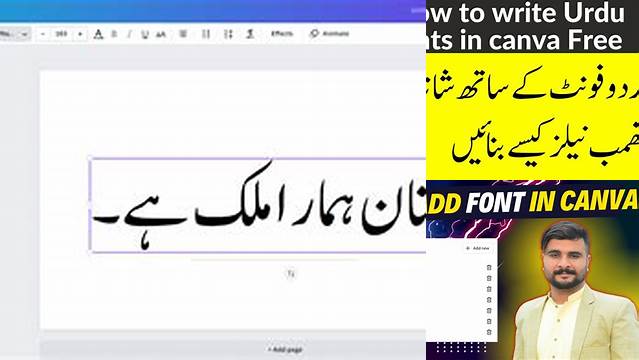
Add Urdu Fonts To Canva: A Simple Guide
Hey guys! Ever wanted to spice up your Canva designs with beautiful Urdu script? Well, you've come to the right place. Adding Urdu fonts in Canva is super easy, and this guide will walk you through everything step by step. We'll cover different methods, tackle common issues, and even give you some font recommendations. So, let's dive in and get those designs looking amazing!
1. Understanding Font Compatibility in Canva
Before we jump into adding Urdu fonts, it's essential to understand how Canva handles fonts. Canva has a vast library of its own fonts, but it also allows you to upload your own. The key thing to remember is that not all fonts are created equal. Some fonts might not display correctly due to encoding issues or lack of support for specific characters. So, when dealing with Urdu fonts, which have unique characters and script, it’s crucial to ensure compatibility. Make sure the font you're using is a Unicode font, as this format supports a wide range of characters, including those in Urdu. Unicode ensures that your text displays correctly across different platforms and applications. Keep this in mind as we move forward, guys!
Always double-check the font format before uploading. Common formats like OTF (OpenType Font) and TTF (TrueType Font) are generally compatible with Canva. Understanding this will save you a lot of headaches down the road. And remember, a little preparation goes a long way in ensuring your designs look professional and polished. We want those Urdu designs to shine, right?
2. Finding High-Quality Urdu Fonts for Canva
Finding the right font can make or break your design. When it comes to Urdu fonts, quality is key. You want fonts that are not only beautiful but also legible and well-designed. There are several online resources where you can find high-quality Urdu fonts. Websites like UrduWeb, PakType, and even Google Fonts offer a variety of options. Google Fonts is particularly useful because it's free and offers a wide selection of Unicode-compliant Urdu fonts.
When searching for fonts, consider the style you're aiming for. Are you looking for something traditional and elegant, or something more modern and playful? Different fonts can evoke different emotions and moods, so choose wisely. Also, pay attention to the licensing terms of the font. Some fonts are free for personal use but require a license for commercial projects. Always ensure you have the necessary permissions before using a font in your designs. Trust me, guys, spending a little time finding the perfect font is worth it. A great font can elevate your design and make it truly stand out.
4. Using the Uploaded Urdu Fonts in Your Canva Designs
Now that you've uploaded your Urdu font, let's put it to use! Open up a design in Canva or create a new one. Select the text element you want to modify, and then click on the font dropdown menu in the toolbar. You should see your uploaded font listed under the “Uploaded fonts” section. Click on your Urdu font to apply it to the selected text. If the font doesn't display correctly initially, don't panic! Sometimes, you might need to refresh the page or clear your browser cache. This usually resolves any temporary glitches.
Once the font is applied, you can adjust the size, color, and other formatting options just like you would with any other font in Canva. Experiment with different styles and combinations to see what works best for your design. Urdu script can be particularly beautiful when paired with complementary fonts and colors. So, have fun and get creative, guys! And remember, the key to great design is often in the details. Make sure your text is legible and visually appealing, and you'll be well on your way to creating stunning Urdu designs in Canva.
5. Troubleshooting Common Issues with Urdu Fonts in Canva
Sometimes, things don't go exactly as planned. You might encounter some issues when using Urdu fonts in Canva. One common problem is that the text might not display correctly, showing up as boxes or garbled characters. This usually happens if the font isn't Unicode-compliant or if there's a temporary glitch in Canva. As mentioned earlier, make sure your font is Unicode-compatible. If the issue persists, try refreshing the page or clearing your browser cache.
Another issue you might face is that the font doesn't appear in the font list after uploading. This can happen if the font file is corrupted or if there was an error during the upload process. Try re-uploading the font file and make sure it’s in a supported format (TTF or OTF). If you're still having trouble, Canva’s help center is a great resource. They have articles and FAQs that address common issues. And if all else fails, don't hesitate to reach out to their support team. They're usually pretty responsive and can help you troubleshoot any problems. Remember, guys, even the best designers run into technical snags sometimes. The key is to stay patient and persistent!
6. Understanding Urdu Script and Typography
To truly master using Urdu fonts in Canva, it's helpful to understand a bit about Urdu script and typography. Urdu is written from right to left and uses a cursive script, meaning the letters are connected. This is different from Latin scripts like English, where letters are usually separate. When choosing an Urdu font, consider how well it maintains the flow and connectivity of the script. A well-designed Urdu font will have smooth transitions between letters and create a visually pleasing rhythm.
Pay attention to the kerning (the spacing between letters) and the leading (the spacing between lines) as well. These elements can significantly impact the legibility and overall appearance of your text. Experiment with different settings to find the perfect balance. Also, be mindful of the context in which you're using the Urdu text. Formal documents might call for a more traditional and elegant font, while informal designs could benefit from a more playful and modern typeface. Understanding the nuances of Urdu script and typography will help you make informed design choices and create visuals that are both beautiful and effective.
7. Choosing the Right Font Size for Urdu Text in Canva
Font size plays a crucial role in the readability and visual impact of your designs. When working with Urdu text in Canva, it’s important to choose a font size that is appropriate for the context and the audience. Too small, and your text will be difficult to read; too large, and it might overwhelm the design. Consider the overall layout and the amount of text you're using. For headlines and titles, you can usually go with a larger font size to grab attention. But for body text, it’s best to stick with a more moderate size to ensure readability.
Experiment with different font sizes and see how they look on different devices. What looks good on your computer screen might not translate well to a mobile device. Canva has a handy preview feature that allows you to see how your designs will appear on various screen sizes. Use this to your advantage, guys! Also, think about the intended use of your design. Is it for a social media post, a printed poster, or a presentation slide? Each of these formats might require a different font size to achieve the best results.
8. Kerning and Leading Adjustments for Urdu Fonts
As we touched on earlier, kerning and leading are essential aspects of typography that can significantly impact the appearance of your Urdu text in Canva. Kerning refers to the spacing between individual letters, while leading refers to the spacing between lines of text. Adjusting these settings can improve the readability and visual harmony of your design. In Urdu script, where letters are connected, kerning is particularly important. You want to ensure that the letters flow smoothly without feeling too cramped or too spaced out.
Canva allows you to adjust kerning and leading in the text formatting options. Experiment with subtle adjustments to see how they affect the overall look of your text. Sometimes, even a small change can make a big difference. If your text looks cluttered or difficult to read, try increasing the leading. This will give the lines of text more breathing room and make them easier to follow. Conversely, if your text looks too sparse, try decreasing the leading. Play around with these settings, guys, and you’ll soon get a feel for what works best for different fonts and layouts.
9. Adding Effects and Styles to Urdu Fonts in Canva
Canva offers a variety of effects and styles that you can apply to your Urdu fonts to enhance their visual appeal. You can add shadows, outlines, glows, and other effects to make your text stand out. These effects can be particularly useful for headlines and titles, where you want to grab the viewer’s attention. However, it’s important to use these effects sparingly and strategically. Overdoing it can make your text look cluttered and distracting.
Experiment with different styles to see what complements your font and your overall design. A subtle shadow can add depth and dimension, while an outline can make your text pop against a busy background. Canva also offers pre-designed text styles that you can apply with a single click. These styles can be a great starting point, but don’t be afraid to customize them to suit your needs. Remember, guys, the goal is to enhance your text, not to overwhelm it. A well-chosen effect can add a touch of personality and professionalism to your design.
10. Combining Urdu Fonts with Other Fonts in Canva
One of the keys to creating visually appealing designs is to use fonts in harmony. This means choosing fonts that complement each other and create a cohesive look. When working with Urdu fonts in Canva, you might want to combine them with Latin fonts (like English) to create a bilingual design. This can be a great way to reach a wider audience and add visual interest to your projects. The trick is to choose fonts that have a similar style and weight. A bold Urdu font might pair well with a bold Latin font, while a delicate Urdu font might look best with a similarly delicate Latin font.
Consider the purpose of your design when choosing fonts. For formal documents, you’ll want to stick with classic and professional fonts. For more casual designs, you can experiment with more playful and unique typefaces. Canva offers a variety of font pairings that you can use as inspiration. You can also browse online resources for font pairing suggestions. Remember, guys, the goal is to create a balanced and harmonious design. Don’t be afraid to experiment, but always keep readability and visual appeal in mind.
11. Best Practices for Using Urdu in Graphic Design
Using Urdu in graphic design requires a thoughtful approach to ensure readability and cultural sensitivity. Since Urdu is written from right to left, consider the overall layout and flow of your design. Place the Urdu text in a way that feels natural and intuitive for Urdu readers. Avoid placing Urdu text in areas where it might be easily overlooked or misinterpreted. Also, be mindful of the cultural context of your design. Urdu is a language rich in history and tradition, so it’s important to use it respectfully and appropriately.
Avoid using slang or colloquialisms that might not translate well or might be offensive to some audiences. When in doubt, it’s always a good idea to consult with a native Urdu speaker to ensure that your text is accurate and culturally appropriate. Pay attention to the details, guys! Small things like the correct placement of diacritics (the small marks above or below letters) can make a big difference in readability and accuracy. And remember, good design is about more than just aesthetics; it’s about communication and connection. By using Urdu thoughtfully and respectfully, you can create designs that resonate with your audience and convey your message effectively.
12. Utilizing Urdu Calligraphy Fonts in Canva
Urdu calligraphy is an art form in itself, and incorporating calligraphy fonts into your Canva designs can add a touch of elegance and sophistication. Calligraphy fonts mimic the fluid and artistic strokes of traditional Urdu calligraphy, creating a visually stunning effect. However, calligraphy fonts can also be more challenging to read than standard fonts, so it’s important to use them judiciously. Reserve them for headlines, titles, or short phrases where you want to make a strong visual statement.
Avoid using calligraphy fonts for body text, as they can be tiring to read in large blocks. When choosing a calligraphy font, consider the overall style of your design. A more ornate calligraphy font might be suitable for formal occasions, while a simpler calligraphy font might be better for everyday designs. Experiment with different sizes and colors to see what works best. Canva offers a variety of calligraphy fonts, and you can also upload your own custom calligraphy fonts if you have them. Remember, guys, calligraphy fonts can be a powerful design tool, but they should be used with care and intention. A well-chosen calligraphy font can elevate your design, but a poorly chosen one can detract from it.
13. Creating Urdu Text Logos in Canva
Creating a logo with Urdu text can be a unique and impactful way to represent your brand or organization. An Urdu text logo can convey a sense of cultural heritage, authenticity, and sophistication. When designing an Urdu text logo in Canva, start by choosing a font that reflects your brand’s personality and values. A traditional and elegant font might be suitable for a high-end brand, while a modern and bold font might be better for a contemporary brand. Consider the overall shape and composition of your logo. Urdu script lends itself well to flowing and dynamic designs, so you might want to experiment with curved lines and intricate details.
Pay attention to the spacing between letters and words to ensure readability. A logo that is difficult to read is not an effective logo. Use color strategically to reinforce your brand’s identity and message. You can use a single color for a minimalist look or combine multiple colors for a more vibrant and dynamic design. Canva offers a variety of logo templates that you can use as a starting point. You can also create your logo from scratch using Canva’s design tools. Remember, guys, a logo is more than just a pretty picture; it’s the visual representation of your brand. Take the time to create a logo that is both beautiful and effective.
14. Designing Urdu Social Media Graphics in Canva
Social media is a visual medium, and creating eye-catching graphics is essential for engaging your audience. When designing Urdu social media graphics in Canva, consider the platform you’re designing for. Different platforms have different size requirements and best practices. For example, Instagram posts are typically square, while Facebook cover photos are rectangular. Canva offers pre-sized templates for various social media platforms, which can save you time and effort. Use high-quality images and graphics to make your designs look professional.
Canva has a library of millions of stock photos and graphics that you can use in your designs. Use color strategically to grab attention and convey your message. Bright and vibrant colors can be effective for social media, but be sure to use them in moderation. Incorporate Urdu text into your designs to connect with your Urdu-speaking audience. Use clear and concise language that is easy to understand. Remember, guys, social media graphics are often viewed on small screens, so it’s important to keep your designs clean and uncluttered. Use white space effectively to give your design room to breathe.
15. Creating Bilingual Designs with Urdu and English in Canva
Designing bilingually in Urdu and English can be a powerful way to reach a wider audience and create inclusive designs. When creating bilingual designs in Canva, it’s important to consider how the two languages will interact visually. Choose fonts that complement each other and have a similar style and weight. Align the Urdu and English text in a way that feels balanced and harmonious. You can align the text on the right or left, or you can center it. Consider the cultural context of your design and use language that is appropriate for your target audience.
Avoid using literal translations, as they can often sound awkward or unnatural. Instead, focus on conveying the same message in both languages using idiomatic expressions and phrasing. Use color and imagery strategically to reinforce your message and create a cohesive design. Canva offers a variety of templates and design elements that you can use to create bilingual designs. Remember, guys, bilingual design is about more than just translating words; it’s about communicating effectively across cultures and languages.
16. Urdu Font Pairing Strategies for Canva
Pairing fonts effectively is crucial for creating visually appealing and readable designs. When working with Urdu fonts in Canva, consider pairing them with Latin fonts (like English) to create a balanced and harmonious look. A good rule of thumb is to choose fonts that have contrasting styles but complementary weights and proportions. For example, you might pair a bold Urdu font with a lighter weight Latin font, or vice versa. Consider the overall tone and style of your design when choosing font pairings. A formal design might call for more classic and traditional fonts, while a casual design might benefit from more playful and modern typefaces.
Experiment with different font combinations to see what works best for your project. Canva offers a variety of font pairing suggestions that you can use as inspiration. You can also browse online resources and design blogs for font pairing tips and ideas. Pay attention to the legibility of your text. Choose font pairings that are easy to read, even at smaller sizes. Remember, guys, font pairing is an art, not a science. There are no hard and fast rules, but by following these guidelines, you can create designs that are both beautiful and effective.
17. Designing Urdu Invitations and Cards in Canva
Creating personalized invitations and cards with Urdu text in Canva can add a special touch to any occasion. Whether it's a wedding invitation, a birthday card, or a festive greeting, incorporating Urdu script can make your designs more meaningful and culturally relevant. When designing Urdu invitations and cards, start by choosing a font that reflects the tone and style of the event. For formal occasions, such as weddings, you might opt for an elegant calligraphy font. For more casual events, like birthdays, you could use a more playful and modern typeface. Consider the overall layout and composition of your design.
Urdu script lends itself well to flowing and decorative designs, so you might want to experiment with curved lines and intricate details. Use color and imagery to enhance your design and convey the desired mood. Canva offers a variety of templates and design elements that you can use to create beautiful Urdu invitations and cards. Pay attention to the details, guys! Small things like the correct placement of diacritics and the proper alignment of text can make a big difference in the overall appearance of your design. And remember, a well-designed invitation or card is a reflection of your thoughtfulness and attention to detail.
18. Using Urdu in Marketing Materials with Canva
Incorporating Urdu into your marketing materials can be a powerful way to connect with your target audience and build brand loyalty. Whether you’re designing brochures, flyers, social media ads, or website banners, using Urdu text can make your message more relevant and engaging for Urdu-speaking customers. When designing Urdu marketing materials in Canva, start by identifying your target audience and understanding their cultural preferences. Use language and imagery that resonates with your audience and avoids any potentially offensive or insensitive content. Choose fonts that are easy to read and that align with your brand’s identity.
Use color and visual elements to grab attention and convey your message effectively. Canva offers a variety of templates and design tools that you can use to create professional-looking marketing materials in Urdu. Pay attention to the overall layout and flow of your design. Ensure that the Urdu text is properly aligned and spaced, and that it complements the other design elements. Remember, guys, effective marketing is about building relationships and creating connections. By using Urdu in your marketing materials, you can demonstrate your commitment to your Urdu-speaking customers and build a stronger bond with your audience.
19. Creating Urdu Presentations with Canva
Delivering presentations in Urdu or incorporating Urdu text into your slides can be an effective way to communicate with an Urdu-speaking audience. When creating Urdu presentations with Canva, start by organizing your content and outlining your key messages. Use clear and concise language that is easy to understand. Choose fonts that are legible and that project a professional image. Use visuals, such as images, charts, and graphs, to illustrate your points and keep your audience engaged. Canva offers a variety of presentation templates that you can use as a starting point.
Design your slides with a clean and uncluttered layout. Avoid overcrowding your slides with too much text or too many images. Use color strategically to highlight key information and create visual interest. Pay attention to the flow of your presentation and ensure that your slides transition smoothly from one to the next. Remember, guys, a well-designed presentation is a powerful tool for communication. By using Urdu effectively in your presentations, you can connect with your audience on a deeper level and deliver your message with greater impact.
20. Designing Urdu Educational Materials in Canva
Creating educational materials in Urdu can be a valuable resource for students and educators alike. Whether you’re designing worksheets, lesson plans, presentations, or infographics, using Urdu text can make your materials more accessible and engaging for Urdu-speaking learners. When designing Urdu educational materials in Canva, start by identifying your learning objectives and tailoring your content to meet those objectives. Use clear and concise language that is appropriate for the age and skill level of your students. Choose fonts that are legible and that support the Urdu script.
Use visuals, such as images, illustrations, and diagrams, to enhance understanding and make your materials more visually appealing. Canva offers a variety of templates and design tools that you can use to create effective Urdu educational materials. Pay attention to the overall layout and organization of your materials. Ensure that the Urdu text is properly aligned and spaced, and that it complements the other design elements. Remember, guys, effective educational materials are designed to facilitate learning. By using Urdu strategically in your materials, you can create a more inclusive and engaging learning environment for your students.
21. Urdu Font Recommendations for Different Design Styles
Choosing the right Urdu font can make a significant difference in the overall look and feel of your design. Different fonts convey different moods and styles, so it’s important to select a font that aligns with your design’s purpose and message. For formal designs, such as wedding invitations or business documents, you might opt for a classic and elegant Urdu calligraphy font. These fonts often feature intricate details and flowing strokes, conveying a sense of tradition and sophistication. For more modern designs, such as social media graphics or website banners, you could use a cleaner and more contemporary Urdu font.
These fonts typically have simpler letterforms and a more streamlined appearance, making them well-suited for digital applications. For casual designs, such as greeting cards or posters, you might experiment with more playful and unique Urdu fonts. These fonts often have distinctive characteristics and a more whimsical feel, adding personality and charm to your designs. Canva offers a variety of Urdu fonts to choose from, and you can also upload your own custom fonts. Remember, guys, the best Urdu font for your design will depend on your specific needs and preferences. Experiment with different fonts to find the perfect fit for your project.
22. Adding Urdu Poetry and Quotes to Canva Designs
Urdu poetry and quotes are rich in beauty and emotion, and incorporating them into your Canva designs can add depth and meaning to your visuals. Whether you’re creating a social media post, a greeting card, or a poster, using Urdu poetry can resonate with your audience and evoke a sense of connection. When adding Urdu poetry to your designs, choose a font that complements the tone and style of the verse. A classic calligraphy font might be suitable for traditional poetry, while a more modern font might be better for contemporary works.
Consider the layout and composition of your design. Urdu poetry is often written in couplets (pairs of lines), so you might want to arrange your text in a way that reflects this structure. Use imagery and visual elements to enhance the meaning of the poetry. A photograph of a landscape, for example, might pair well with a verse about nature. Canva offers a variety of design tools that you can use to create beautiful Urdu poetry designs. Remember, guys, poetry is a powerful form of expression. By incorporating Urdu poetry into your designs, you can create visuals that are both aesthetically pleasing and emotionally resonant.
23. Designing Urdu Infographics in Canva
Infographics are a visual way to present information, and incorporating Urdu text into your infographics can make them more accessible and engaging for Urdu-speaking audiences. When designing Urdu infographics in Canva, start by identifying your key data points and organizing your information in a clear and logical manner. Use headings, subheadings, and bullet points to break up large blocks of text and make your information easier to digest. Choose fonts that are legible and that support the Urdu script. Use visuals, such as charts, graphs, and icons, to illustrate your data and make your infographic more visually appealing.
Canva offers a variety of infographic templates that you can use as a starting point. Use color strategically to highlight key information and create visual interest. Pay attention to the overall layout and flow of your infographic. Ensure that the Urdu text is properly aligned and spaced, and that it complements the other design elements. Remember, guys, an effective infographic is designed to communicate complex information in a simple and engaging way. By using Urdu strategically in your infographics, you can reach a wider audience and share your message more effectively.
24. Creating Urdu Banners and Headers in Canva
Designing banners and headers with Urdu text in Canva can be a great way to personalize your website, blog, or social media profiles. A well-designed banner or header can grab attention and convey your brand’s message effectively. When creating Urdu banners and headers, start by choosing a font that reflects your brand’s personality and style. A bold and eye-catching font might be suitable for a header, while a more subtle font might be better for a banner. Consider the overall layout and composition of your design. Use color and imagery to reinforce your brand identity and create a visually appealing design.
Canva offers a variety of banner and header templates that you can use as a starting point. Pay attention to the dimensions and resolution requirements of the platform you’re designing for. Different platforms have different specifications, so it’s important to ensure that your banner or header is properly sized and optimized. Remember, guys, your banner or header is often the first thing people see when they visit your website or profile. Make sure it makes a positive and lasting impression.
25. Designing Urdu Certificates and Awards in Canva
Creating Urdu certificates and awards in Canva can be a meaningful way to recognize achievements and celebrate accomplishments. Whether you’re designing a certificate of completion, an award for academic excellence, or a recognition of service, incorporating Urdu text can make your designs more culturally relevant and personalized. When designing Urdu certificates and awards, start by choosing a font that conveys a sense of formality and prestige. A classic calligraphy font might be suitable for this purpose. Consider the overall layout and composition of your design. Use borders, seals, and other design elements to add a touch of elegance and sophistication.
Use high-quality paper and printing techniques to ensure that your certificates and awards look professional and polished. Canva offers a variety of certificate and award templates that you can use as a starting point. Pay attention to the wording and phrasing of your text. Use clear and concise language that is appropriate for the occasion. Remember, guys, a well-designed certificate or award is a lasting tribute to the recipient’s achievements. By using Urdu effectively in your designs, you can create a keepsake that will be treasured for years to come.
26. Exporting Your Canva Designs with Urdu Fonts
Once you’ve finished designing your Urdu masterpiece in Canva, it’s time to export it for use in your desired format. Canva offers a variety of export options, including JPG, PNG, PDF, and even video. When exporting designs with Urdu fonts, it’s important to choose the right settings to ensure that your text displays correctly. For images and graphics, such as social media posts or website banners, PNG is often the best choice. PNG is a lossless format, which means it preserves the quality of your design and avoids pixelation. For documents and presentations, PDF is usually the preferred option.
PDF files embed the fonts used in your design, ensuring that your Urdu text displays correctly on any device. Before exporting, double-check your design to ensure that all of the Urdu text is displaying properly and that there are no formatting errors. You might want to export a test version to verify that everything looks as expected. Remember, guys, exporting your design is the final step in the creative process. By choosing the right export settings, you can ensure that your Urdu designs look their best in any context.
27. Sharing Your Urdu Canva Designs Online
Sharing your Urdu Canva designs online is a great way to showcase your creativity and connect with a wider audience. Whether you’re posting your designs on social media, sharing them on a website, or sending them via email, there are a few things to keep in mind to ensure that they look their best. When sharing on social media, consider the platform you’re using and tailor your design accordingly. Different platforms have different size and resolution requirements, so it’s important to optimize your design for the specific platform. Use hashtags and captions to make your designs discoverable and engage with your audience.
When sharing on a website, ensure that your designs are properly sized and optimized for web viewing. Large images can slow down your website’s loading time, so it’s important to compress your images without sacrificing quality. When sharing via email, consider the file size of your design. Large files can be difficult to send and receive, so it’s best to compress your designs before sending them. Remember, guys, sharing your Urdu Canva designs online is a great way to get feedback and inspiration. Don’t be afraid to showcase your work and connect with other designers and creatives.
28. Collaborating on Urdu Designs in Canva
Canva makes it easy to collaborate with others on design projects, which can be especially useful when working on Urdu designs. Whether you’re collaborating with a team of designers, a client, or a friend, Canva’s collaboration features can streamline your workflow and make the design process more efficient. To collaborate on a design in Canva, simply share a link to your design with the people you want to collaborate with. You can choose to give them edit access or view-only access, depending on your needs.
Canva also offers real-time collaboration, which means that you can work on the same design simultaneously with others. This can be particularly helpful for brainstorming ideas and making quick edits. Use Canva’s commenting feature to provide feedback and communicate with your collaborators. You can leave comments directly on the design elements, making it easy to pinpoint specific areas for improvement. Remember, guys, collaboration is a key part of the design process. By using Canva’s collaboration features effectively, you can create better Urdu designs together.
29. Staying Updated with Canva's Font Library and Features
Canva is constantly updating its font library and features, so it’s important to stay informed about the latest additions and improvements. Canva regularly adds new fonts, including Urdu fonts, to its collection. Keep an eye on Canva’s blog and social media channels for announcements about new font releases. Canva also introduces new design features and tools on a regular basis. These updates can enhance your design capabilities and make it easier to create stunning visuals. Take the time to explore Canva’s interface and familiarize yourself with the new features.
Canva offers a variety of tutorials and resources to help you learn how to use its features effectively. Check out Canva’s design school for free courses and tutorials on graphic design principles and Canva’s tools. Remember, guys, staying updated with Canva’s font library and features will help you create more innovative and effective Urdu designs.
30. Advanced Tips for Urdu Typography in Canva
For those looking to take their Urdu typography skills in Canva to the next level, there are several advanced tips and techniques to explore. Experiment with different text alignment options, such as right alignment and justified alignment, to create visually interesting layouts. Pay attention to the spacing between words and lines to ensure readability. Adjust the kerning and leading settings to fine-tune the appearance of your Urdu text. Use text masks and shapes to create unique and eye-catching typography effects. Canva allows you to place text inside shapes or use text as a mask for images, opening up a world of creative possibilities.
Explore different blending modes to create interesting visual effects. Canva’s blending modes allow you to blend your text with the background or other design elements, creating subtle or dramatic effects. Remember, guys, advanced typography is about pushing the boundaries and exploring new possibilities. By experimenting with these tips and techniques, you can create truly unique and professional-looking Urdu designs in Canva.